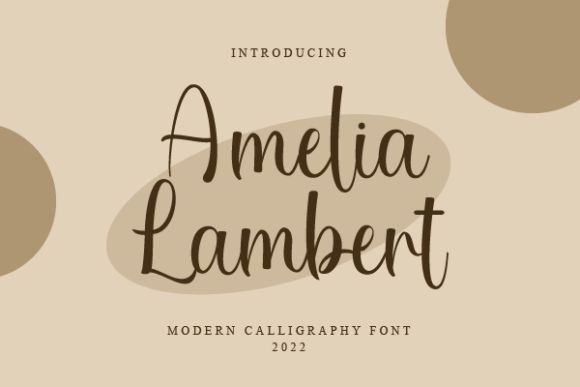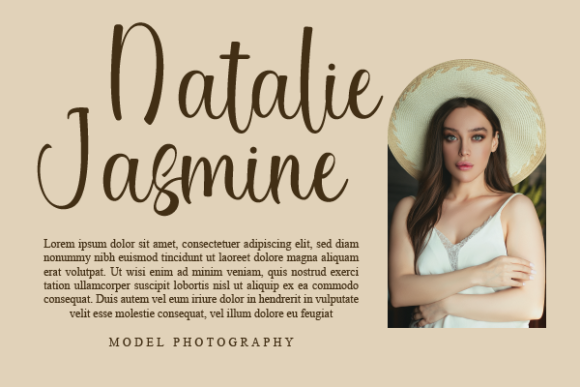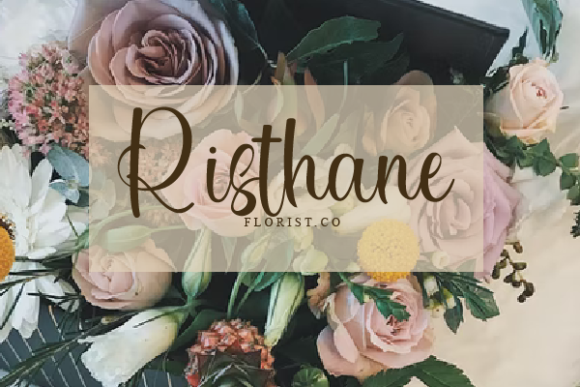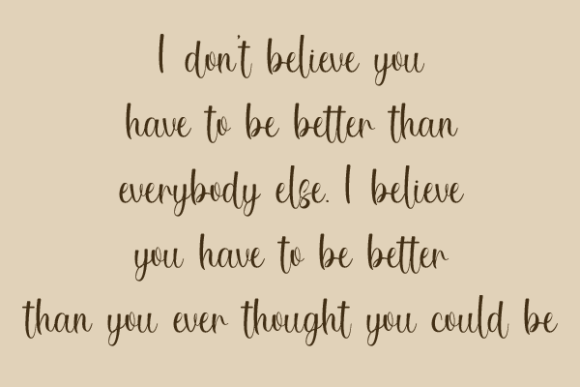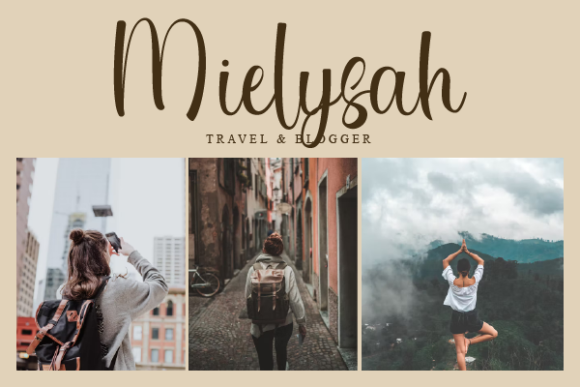
Amelia Lambert Font
About Amelia Lambert Font
Amelia Lambert stands as an exquisite handwritten font, poised to elevate your creative endeavors with its elegant and gracefully curved lines. This font transcends mere typography, serving as a visual statement that effortlessly propels your work into the realm of distinction. Tailored for versatility, Amelia Lambert proves to be the perfect choice for an array of applications, including product packaging, branding projects, magazine covers, social media graphics, weddings, or any context where conveying words with finesse above the background is paramount.
The font’s elegant lines are not just strokes on a canvas but an embodiment of sophistication, adding a touch of class to every project it graces. Picture Amelia Lambert adorning product packaging, transforming it into a visual masterpiece that not only protects the contents but also captivates the consumer with its unique charm.
In the realm of branding, Amelia Lambert emerges as a powerful tool, capable of shaping and enhancing the identity of your project. Its handwritten allure brings forth a sense of authenticity, forging a connection between your brand and its audience. The font seamlessly integrates into the visual language of your brand, creating a cohesive and memorable impression.
Magazine covers, with their need to capture attention swiftly, find an ideal companion in Amelia Lambert. The font’s curvy lines and elegant demeanor set the tone for what lies within the pages, inviting readers to explore the content with an added layer of visual appeal.
Social media, a platform that thrives on visually arresting content, discovers a valuable asset in Amelia Lambert. Your posts and graphics become not just information but a visual narrative, where each word is delicately expressed against the backdrop, creating an immersive and memorable experience for your audience.
In the romantic realm of weddings, Amelia Lambert weaves a story of its own. Imagine invitations adorned with this font, where each curve and line expresses not just information but emotion, setting the stage for a celebration of love.
Amelia Lambert is not just a font; it’s a design companion that transforms your ideas into visual masterpieces. As you incorporate it into your creative journey, may its elegant lines continue to resonate, making your work stand out and leaving an indelible mark on the canvas of your imagination.